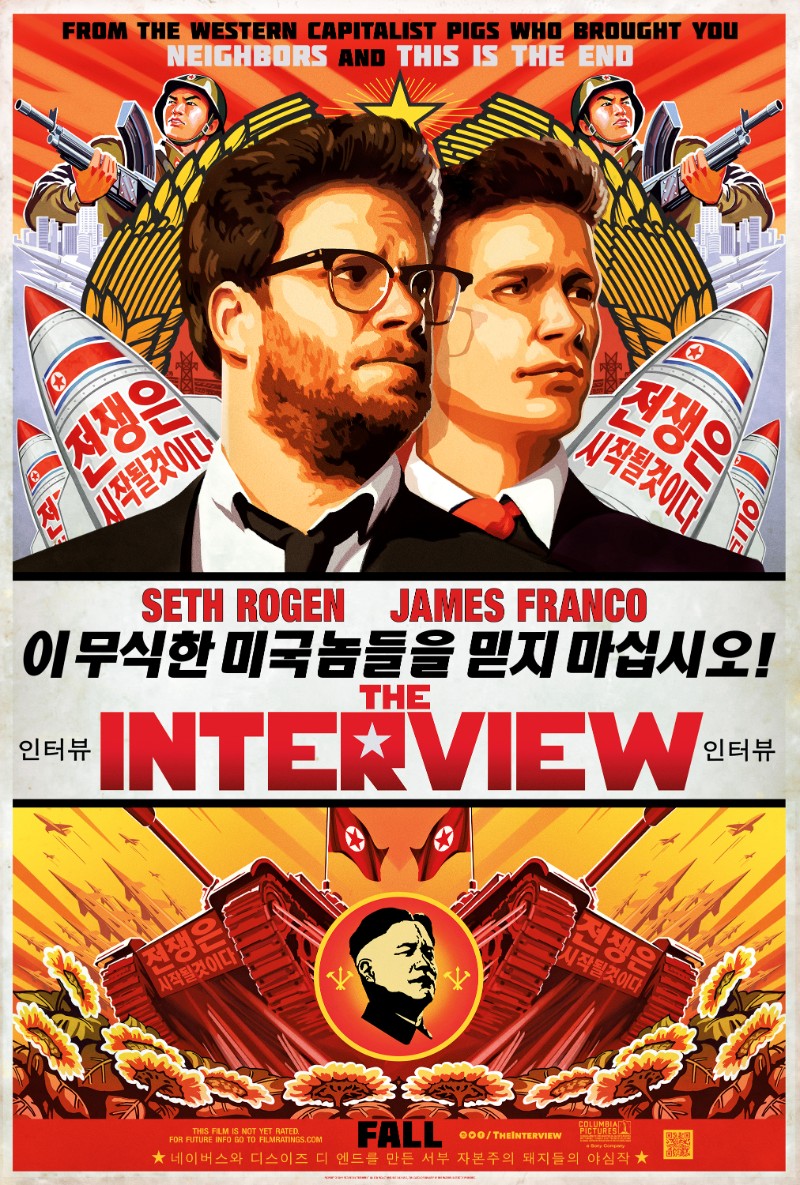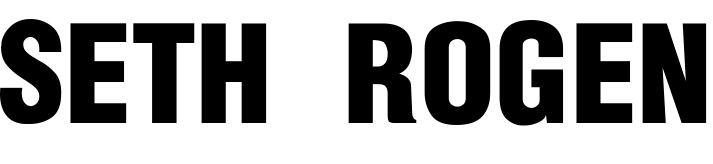
The Interview Font
ComedyThe Interview is a 2014 American political satire comedy film directed by Evan Goldberg and Seth Rogen, starring Rogen and James Franco as journalists who are recruited by the CIA to assassinate Kim Jong-un of North Korea.
The film title's font bears a resemblance to the free font "Hunger Games" by Jordan Seth, which is available for free download in the Fonts Used Section. The poster also features two complementary sans serif fonts, ''Helvetica Black Condensed'' and "Molot" by Jovanny Lemonad.